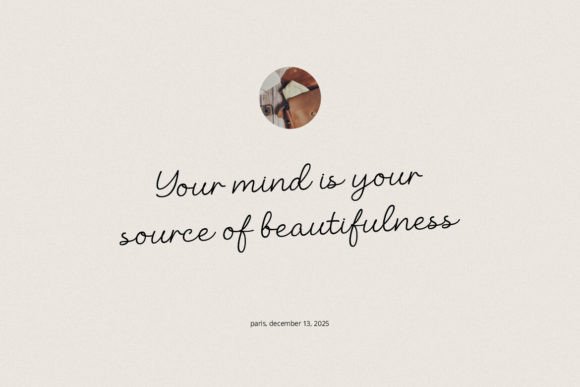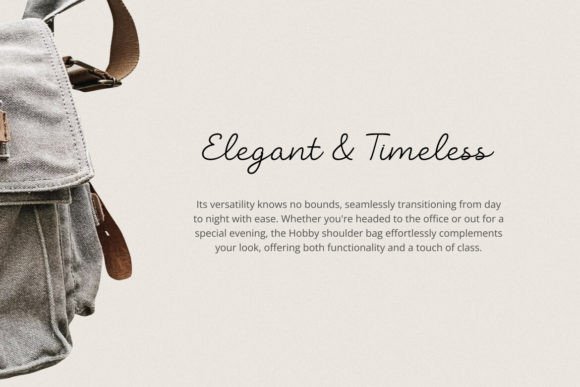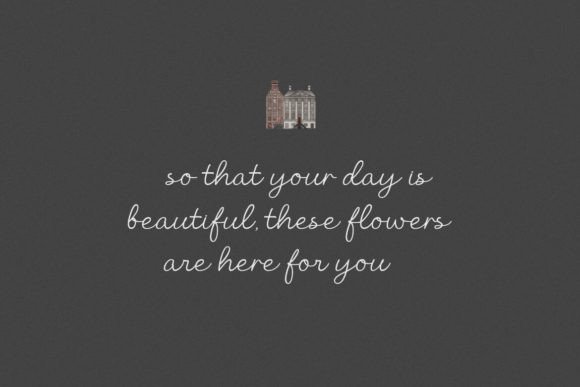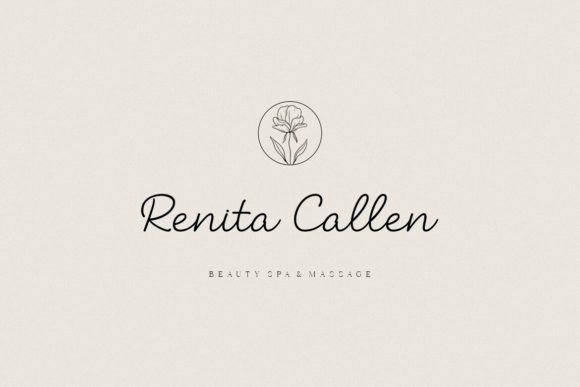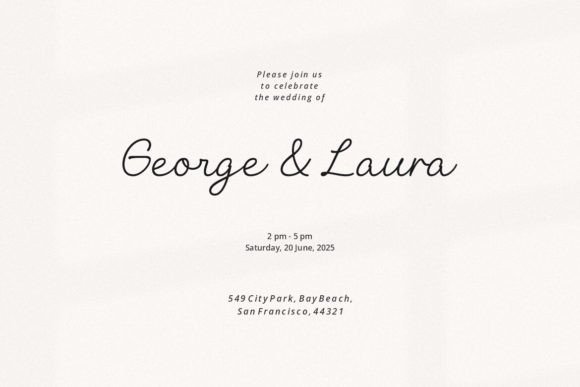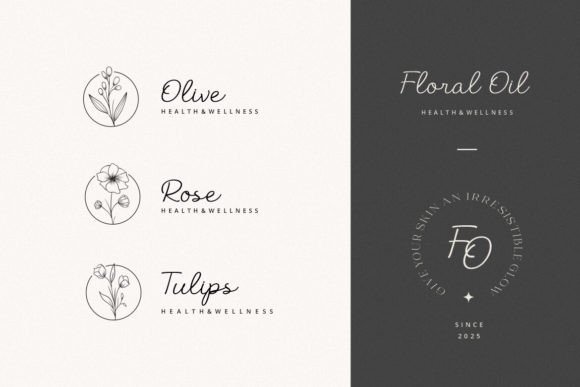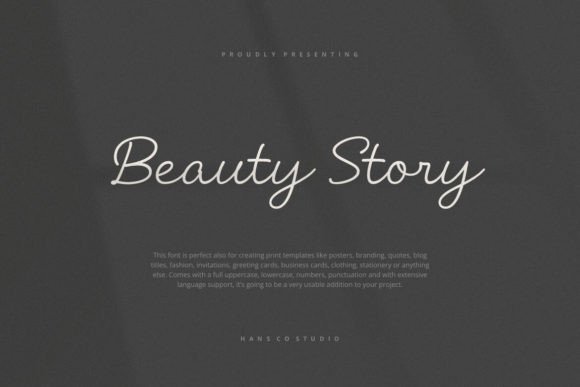
Unleash Your Creativity with Beauty Story Font
Have you ever been working on a design project, pouring your heart and soul into it, and then suddenly, you’re stuck on the perfect font to bring your vision to life? This is where the magic happens – the moment when the right font can elevate your creation and make it truly special.
Enter Beauty Story Font, a stunning and elegant handwriting font designed to help you turn your ideas into breathtaking works of art. Whether you’re a seasoned designer or a creative enthusiast, this font is perfect for crafting unique and eye-catching designs that will leave a lasting impression. From Instagram posts to DIY projects, Beauty Story Font is your go-to companion for creating stunning visuals that tell a story.
With its clean and modern aesthetic, Beauty Story Font is a valuable addition to any designer’s toolkit, offering endless possibilities for creativity and self-expression. So why settle for ordinary when you can create extraordinary with Beauty Story Font?
Key Features of Beauty Story Font
- Font Family: Beauty Story Font is a modern script font designed to evoke a sense of elegance and sophistication. It is ideal for use in beauty and lifestyle branding, advertising, and packaging.
- Unique Characteristics: The font features a flowing, cursive design with subtle flourishes and connecting strokes, giving it a dynamic and expressive feel.
- Font Weight and Style: The font is available in 6 weights (Hairline, Light, Regular, Medium, Bold, and Black) and 2 styles (Normal and Italic), allowing users to customize the look and feel of their typography.
Beauty Story Font Review
As a designer, I was excited to dive into the Beauty Story Font and see what it had to offer. Here’s my honest review.
- Unique, Hand-Drawn Style: Beauty Story Font has a beautiful, hand-drawn feel that sets it apart from more generic fonts.
- Whimsical, Feminine Touch: The font’s design is perfect for projects that need a touch of femininity and whimsy.
- High-Quality Glyphs: The font includes a wide range of glyphs, including ligatures, ornaments, and swashes, making it perfect for creative projects.
- Not Suitable for Body Text: While the font is beautiful for headlines and titles, it may not be the best choice for body text due to its irregular spacing and letterforms.
- Limited Font Sizes: The font may not scale well at very large or very small font sizes, which could affect its readability.
- Lack of Italic and Bold Weights: While the font includes regular and bold weights, it does not include italic or condensed weights, which may limit its versatility.
The Beauty Story Font is a beautiful, unique font that is perfect for creative projects that need a touch of whimsy and femininity. While it may have some limitations, it is a great addition to any designer’s toolkit.
Tips for Getting the Most Out of Beauty Story Font
For the best results, use Beauty Story Font in conjunction with a clean and modern design aesthetic. Experiment with different font sizes, colors, and arrangements to create visually appealing text effects.
Beauty Story Font is ideal for creative projects such as:
– Beauty and fashion blogs
– Advertising and marketing materials
– Creative resumes and portfolios
Alternatives to Beauty Story Font
Playfair Display is an elegant and luxurious font perfect for high-end fashion brands, luxury products, and special occasions. It features intricate details and flourishes, making it a great choice for designers looking for a sophisticated look.
Compared to Beauty Story Font, Playfair Display has a more refined and classic feel, while Beauty Story Font is more playful and modern. Playfair Display is ideal for projects that require a touch of luxury and sophistication, whereas Beauty Story Font is better suited for trendy and fashion-forward designs.
Q: Can I customize the Beauty Story Font for my specific design project?